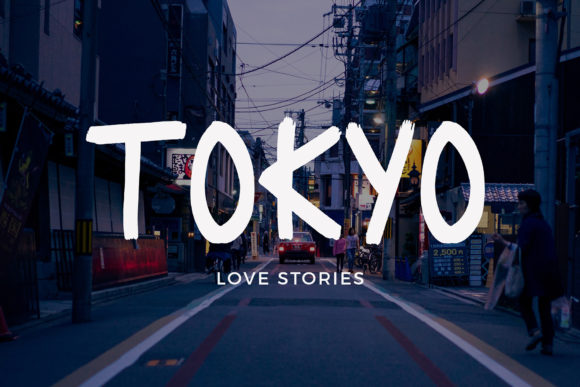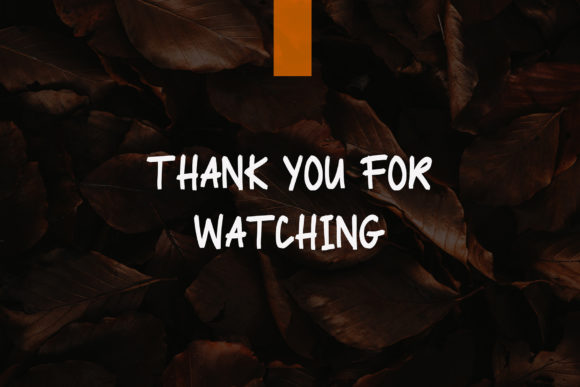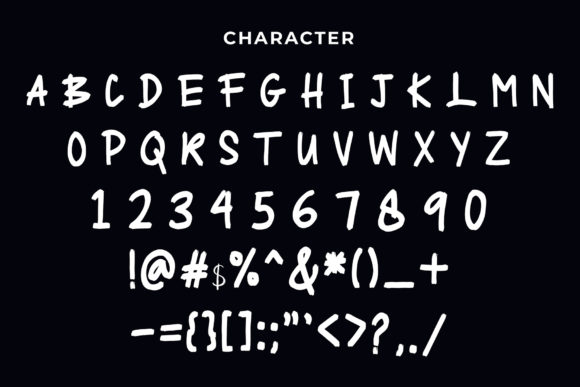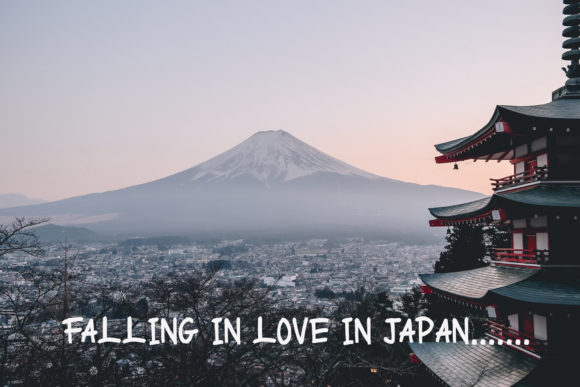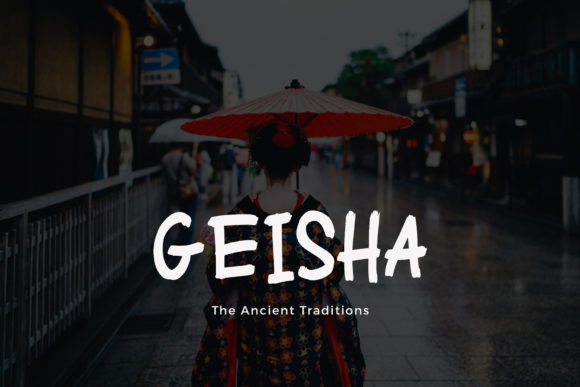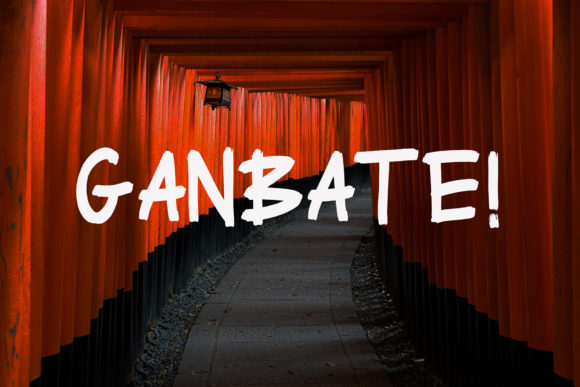
Introducing Bonita Font: The Ultimate Urban Display Font
Are you looking for a font that adds a cool touch to your designs? Look no further than Bonita Font, an assertive and dramatic brushed display font that’s perfect for creating stunning urban designs, posters, and more. In this article, we’ll dive into the world of Bonita Font and explore its features, uses, and benefits for designers and crafters.
What is Bonita Font?
Bonita Font is a unique and stylish brushed display font that’s designed to make a statement. Its bold and dramatic strokes are perfect for grabbing attention and adding a touch of urban flair to any design. Whether you’re working on a poster, flyer, or social media graphic, Bonita Font is sure to make your text stand out.
Key Features of Bonita Font
- Assertive and dramatic strokes: Bonita Font features bold and expressive strokes that add a touch of drama to your designs.
- Brushed texture: The font’s brushed texture gives it a unique, hand-crafted feel that’s perfect for urban and edgy designs.
- Display font: Bonita Font is designed specifically for display purposes, making it perfect for headlines, titles, and short phrases.
- Urban feel: The font’s bold and edgy style makes it perfect for designs that require an urban or streetwear vibe.
Uses for Bonita Font
Bonita Font is a versatile font that can be used in a variety of design projects, including:
- Posters and flyers: Add a bold and eye-catching title to your poster or flyer with Bonita Font.
- Urban designs: Use Bonita Font to add a touch of urban flair to your designs, such as graffiti-inspired art or streetwear branding.
- Social media graphics: Make your social media graphics stand out with Bonita Font’s bold and dramatic strokes.
- Logos and branding: Use Bonita Font to create a bold and memorable logo or brand identity.
Bonita Font offers a range of benefits for designers and crafters, including:
- Easy to read: Despite its bold and dramatic strokes, Bonita Font is easy to read, even at smaller sizes.
- Highly versatile: Bonita Font can be used in a variety of design projects, from posters and flyers to social media graphics and logos.
- Unique and stylish: Bonita Font’s brushed texture and bold strokes make it a unique and stylish addition to any design.
- Time-saving: With Bonita Font, you can create stunning designs in no time, thanks to its pre-designed strokes and characters.
Tips for Using Bonita Font
Here are some tips for getting the most out of Bonita Font:
- Use it sparingly: Bonita Font is a bold and dramatic font, so use it sparingly to avoid overwhelming your design.
- Pair it with a simple font: Pair Bonita Font with a simple font to create contrast and visual interest.
- Experiment with colors: Bonita Font looks great in a range of colors, so experiment with different hues and shades to find the perfect look for your design.
- Pay attention to kerning: As with any font, pay attention to kerning to ensure that your text looks professional and polished.
Bonita Font is a unique and stylish brushed display font that’s perfect for designers and crafters looking to add a cool touch to their designs. With its bold and dramatic strokes, brushed texture, and urban feel, Bonita Font is ideal for creating stunning urban designs, posters, and more. Whether you’re a seasoned designer or just starting out, Bonita Font is a great addition to your font library.